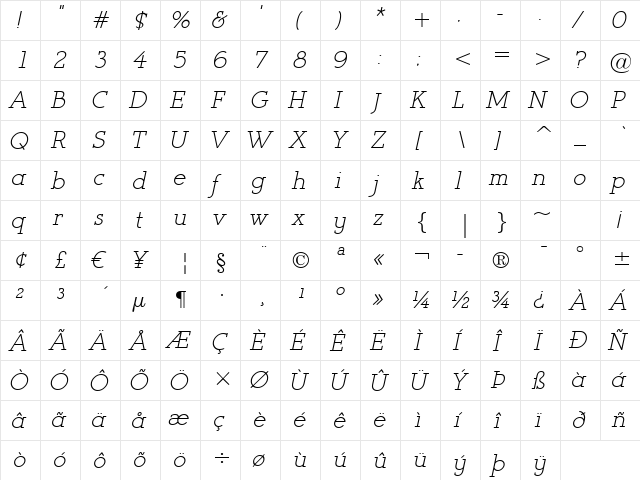
Register Serif BTN Oblique
Design Context for Register Serif BTN Typeface
Register Serif BTN brings classic typographic sensibility to the table — its serifs and measured letterforms reflect centuries of print heritage. Its italic angle brings a sense of urgency and motion to the letterforms.
Pro Tip: Use Register Serif BTN for editorial body copy and considered headline work. Pair with a neutral sans for UI elements or captions to create a classic hierarchy.